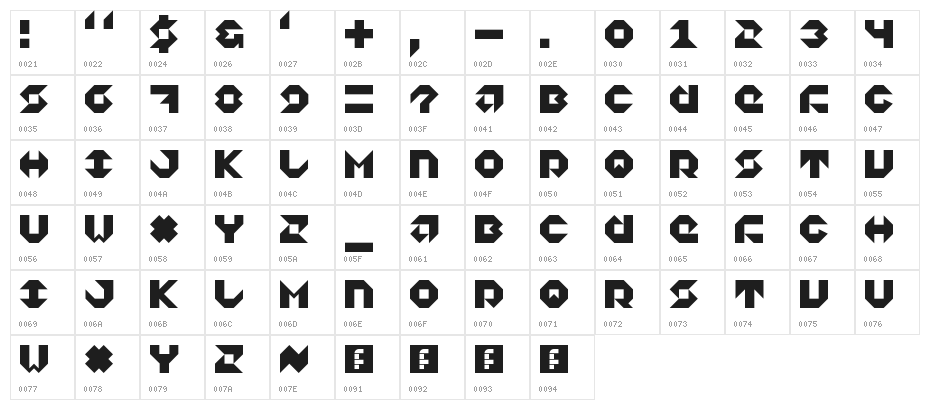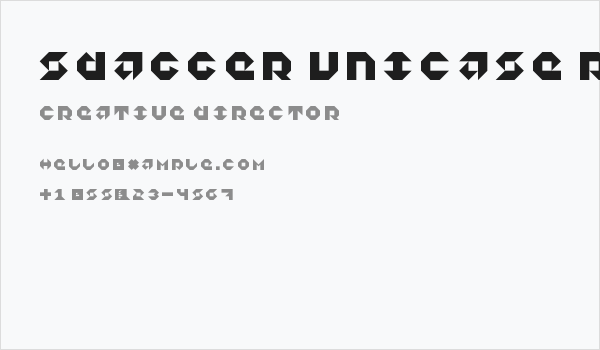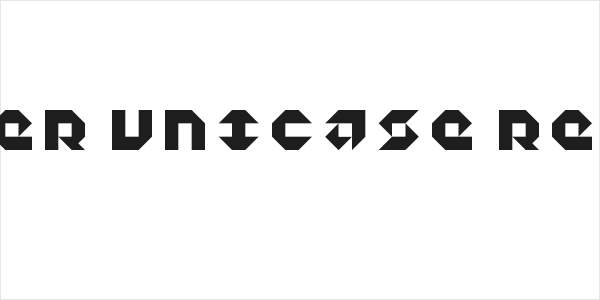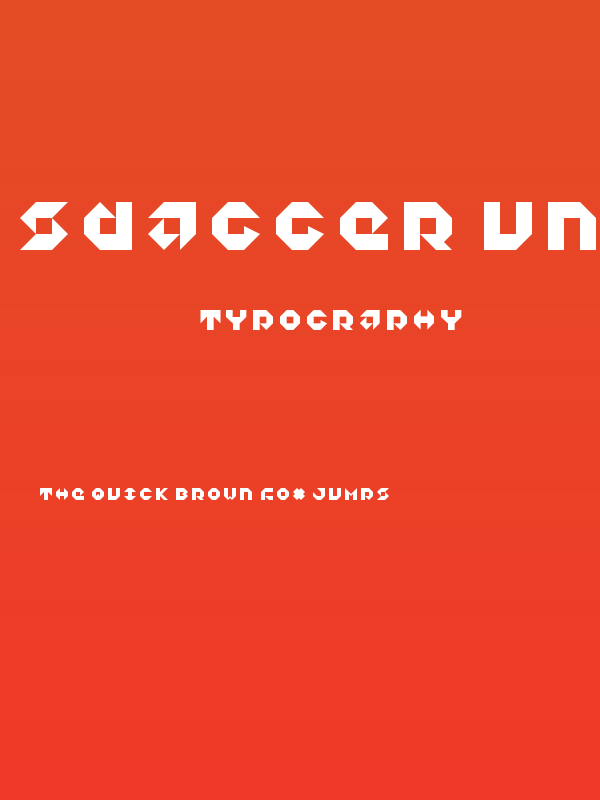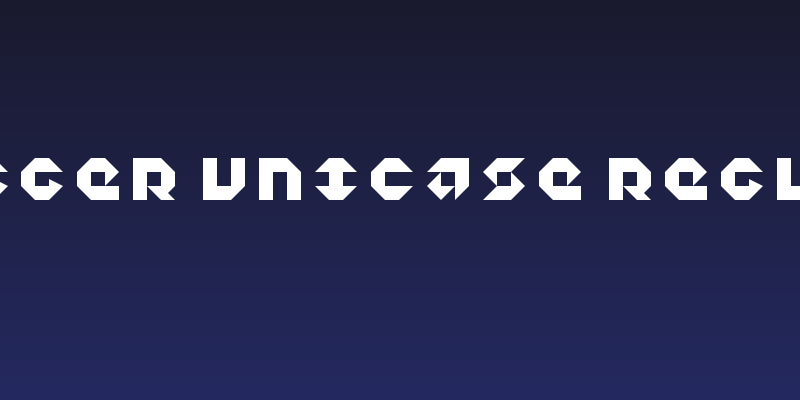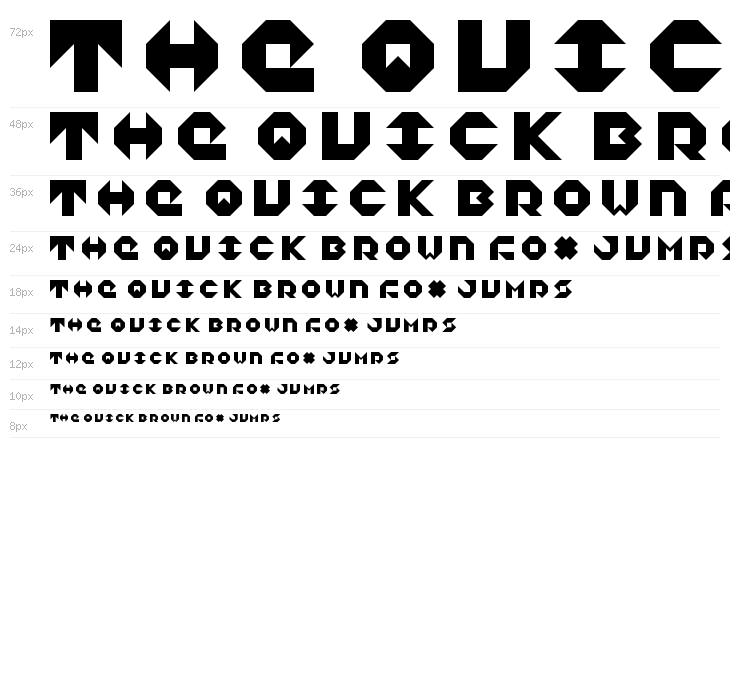
5Dagger Unicase Regular Font
5Dagger Unicase Regular Description
This font features a bold, geometric design with sharp angles and a distinct, futuristic appearance. The characters are constructed with a series of straight lines and angular cuts, creating a unique, edgy look. The uppercase and lowercase letters share a similar style, maintaining consistency across the alphabet. Numbers and special characters follow the same geometric pattern, ensuring uniformity. The font's boldness and striking design make it ideal for attention-grabbing projects.
| Proposed Projects | Ideal for sci-fi themed designs, video game titles, posters, and branding that requires a modern, edgy look. |